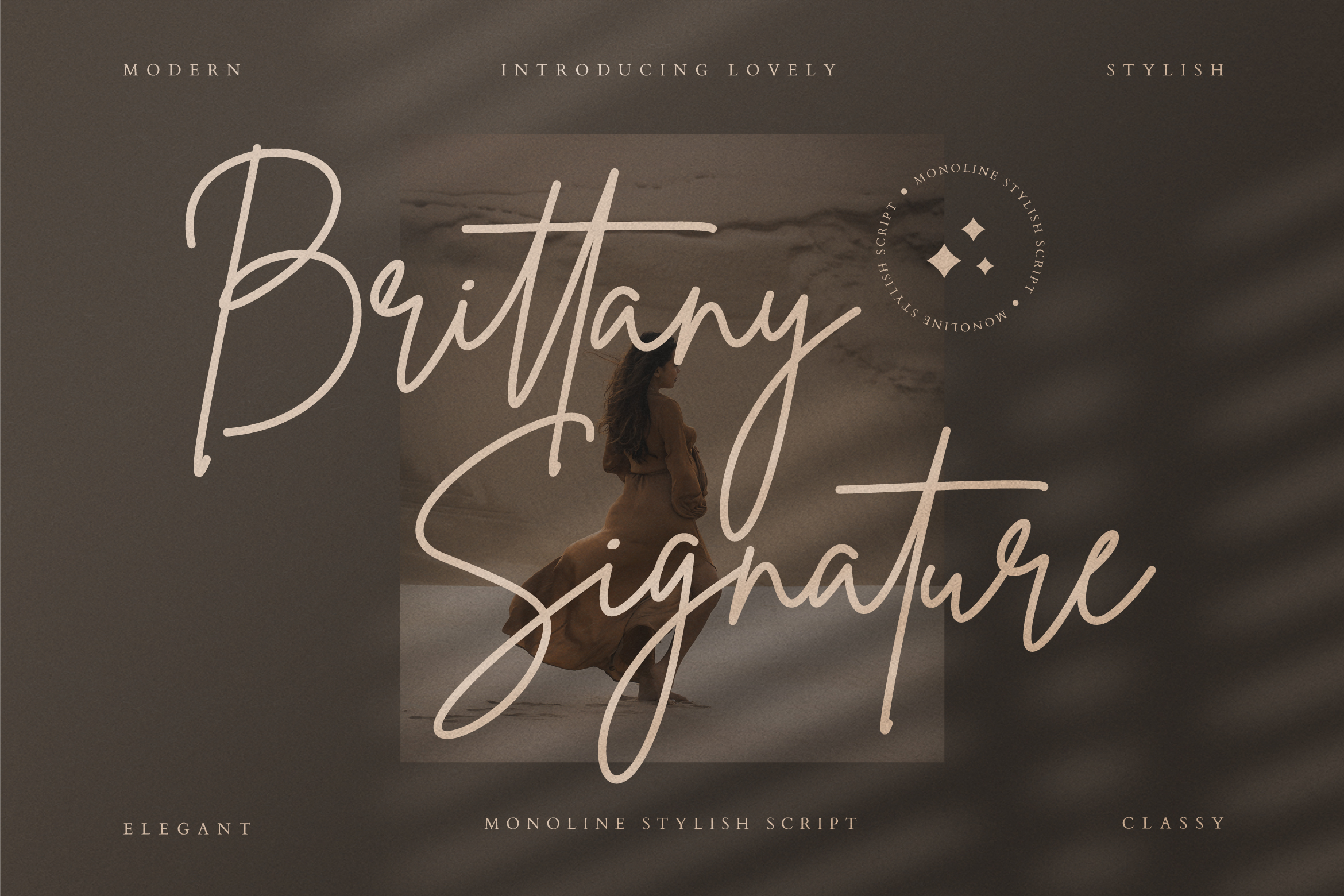
10 Brittany Fonts Similar to Your Charming Design
If you’re working or studying digital design, you may be familiar with various kinds of fonts. Every font can be similar to others or can be extremely different from one to another. Some fonts, like Times New Roman, may seem formal or natural, like real hand lettering. Another one that many people search for is the Brittany font similar.
Since you click this article, it’s absolutely because you’re on the search for a Brittany font similar. So, without any further ado, let’s jump to the point!
What is Brittany Signature Font?
Brittany Signature Script is a font that has a fashionable and sophisticated signature-style script. Moreover, it has an elegant inky flow and unique curves that look so stunning. People usually use this font as an elegant touch and signature-like font.
In addition, this beautiful font is perfect for any project where it needs handwriting taste. For instance, it can be used for branding projects, social media posts, wedding design, photography, stationary, and many more.
Collection of Brittany Fonts Similar
Brittany indeed has a beautiful handwriting style, which is a font that may become many designer favorites. Thus, if you have to use it often and looking for another alternative, here are the lists:
1. Salonica
Salonica Font
Remarkably similar to Brittany font, Salonica also has a handwriting type with beautiful strokes. It emphasizes the regular and italics. Aside from that, the Salonica font will be great for creative agencies, personal brands, and others.
2. White Systemattic
White Systemattic Font
Next is a font called White Systemattic that has a signature style. Each alphabet on this font’s word will also use a continuous line. Plus, it has a natural thickness similar to writing with a pen.
3. Manly Signature
Manly Signature Font
Manly Signature is a handwriting style that has a chic and refined script font. The difference with the Brittany Signature is it has more neat writing. Not only that, the alternates and ligatures make it suitable for any project.
>4. Retro Signature
Retro Signature Font
The Retro Signature font is very similar to the Brittany Signature, mainly after placing the letter T in the middle of the word. This font also has a simple yet elegant typographic harmony for a myriad of design products. It can be the best option if you want a font similar to Brittany but has a more neat and clean look.
5. Goodnight London Script
Goodnight London Script
If you’re looking for a similar vibe of elegance, classiness, and luxury, then consider this Goodnight London Script. As you can see, this font has a beautiful handwritten script font combining the thick and thin sizes. This duo font also bends the Sans and Script font which is the main reason behind its elegance.
6. Bristine Signature
Bristine Signature Font
Not only its name but the Bristine Signature font has very identical features to Brittany. But it is more simple with only similar thickness, and each letter is easy to read. As you can see, this font is the best Brittany font similar
7. Young Robust
Young Robust Font
Young Robust font is like a brush version of Brittany Signature. Instead of using a pen, it combines the script & sans with swash to give a hand brush writing. Therefore, you can use it for several classic designs, whether it is for fashion products or invitations.
8. Darcey Oliver
Darcey Oliver Font
The Darcey Oliver is a font that has a clean stroke with a thin line. This font combines the script and handwriting to make it look naturally fabulous. Besides, it can be the best option if you want to emphasize the capitalized letter.
9. Dellamonde
Dellamonde Font
Dellamonde is a font that uses classy and awesome writing. It has a bold and thick style with a thin but bold touch at the end of the stroke. So, it is ideal for luxury brand logos, invitations, watermarks, and others.
10. Ving Smith
Ving Smith Font
The last recommendation for Brittany font similar is Ving Smith. It has great strokes, whether uppercase or lowercase. In addition, you can use this font for specific designs, including women’s products, weddings, or posters.
Let’s Choose Brittany Fonts Similar to Your Design!
When you choose a font for your design, features are the most important thing that shows its legibility. Even though the Brittany font has a signature look, it has a decorative and curvy appearance. It also still looks elegant while still readable.